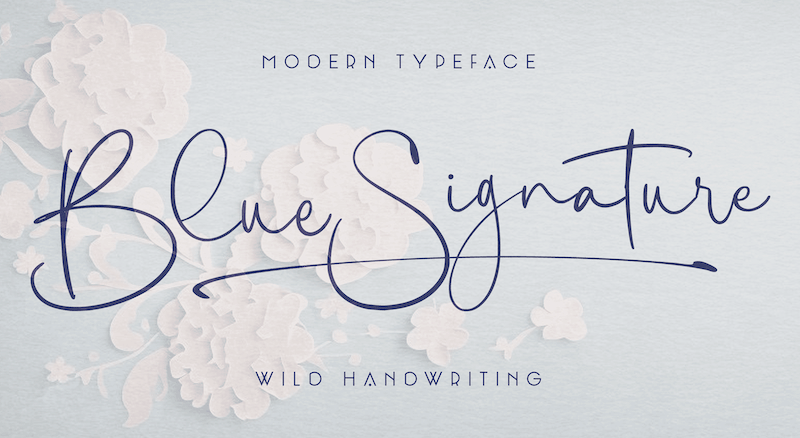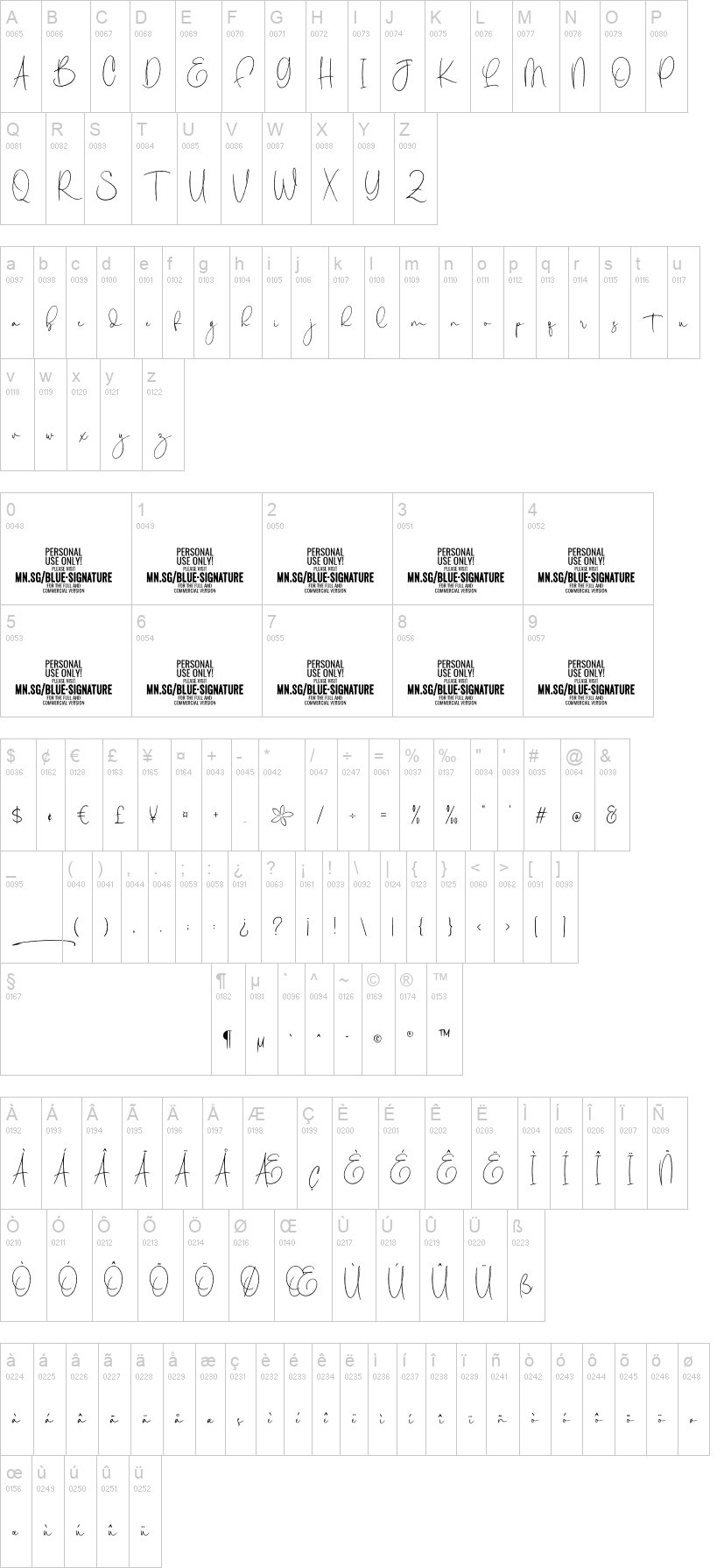
Blue Signature is a playful and expressive handwriting font with a wild and untamed style. Its looping, flowing strokes and elegant curves give it a unique and authentic look. Designed with a focus autograph-like qualities.
Use underscore _ anywhere in a word to make a swash.
Example: White_sign
Use multiple underscores to make different swashes.
Example: Love____letters
Use * to make flowers!
Pink*Roses
Spring***Party